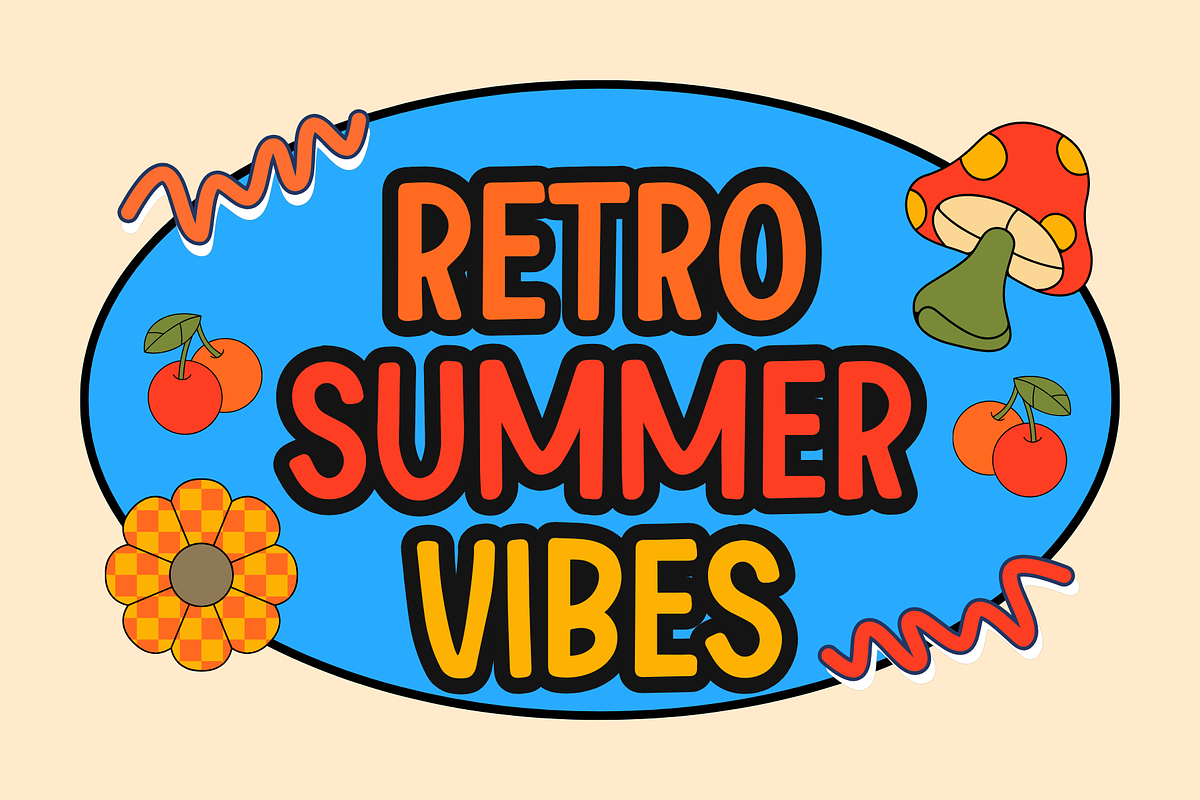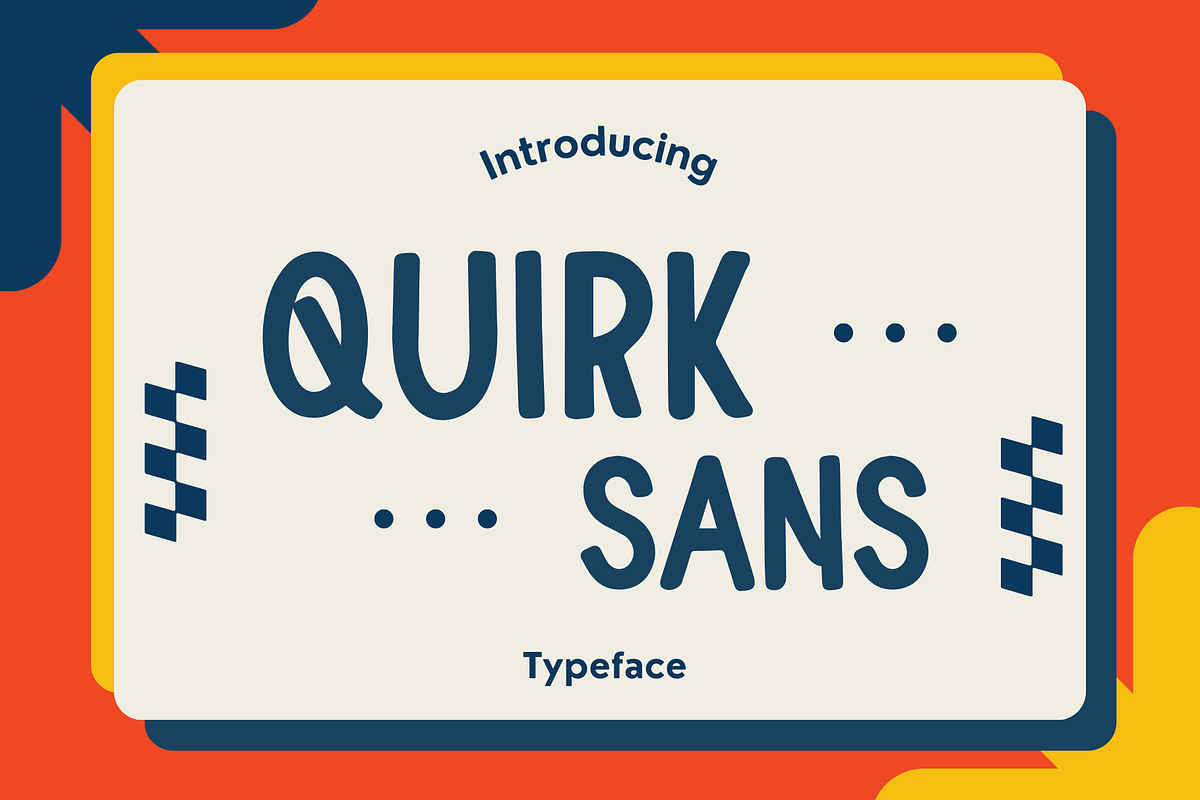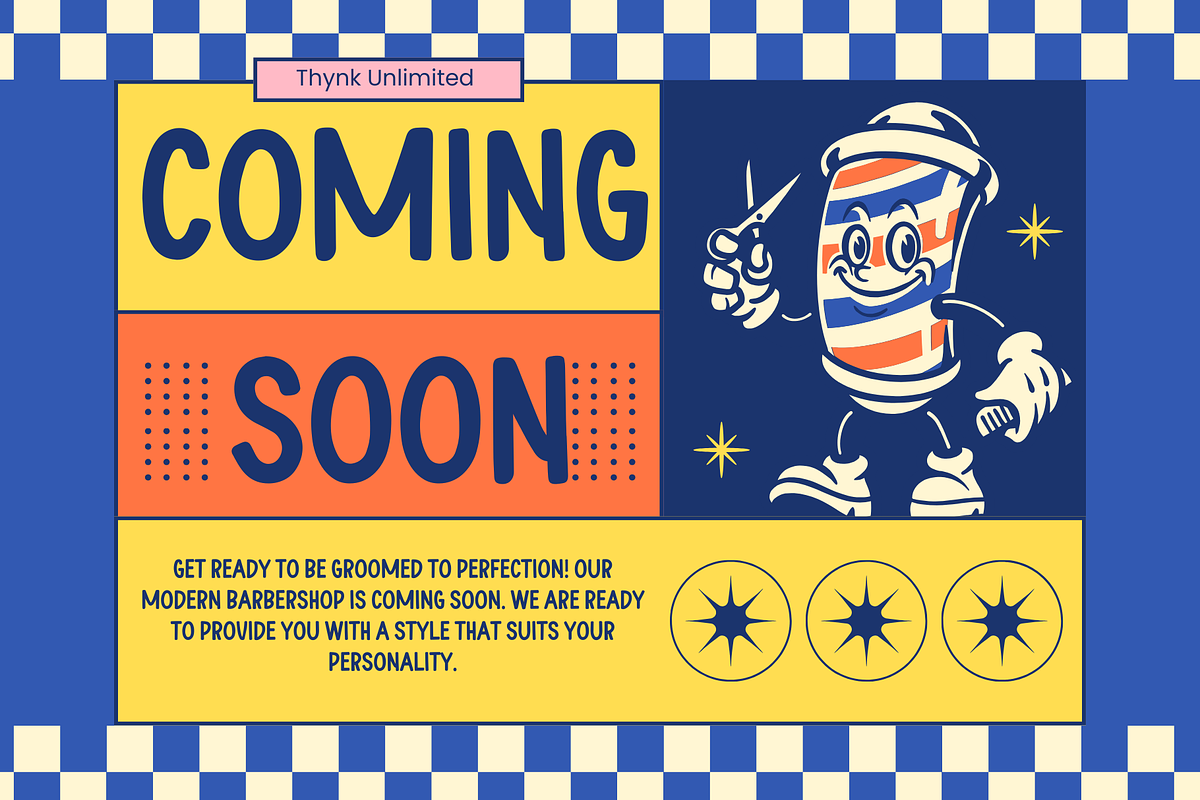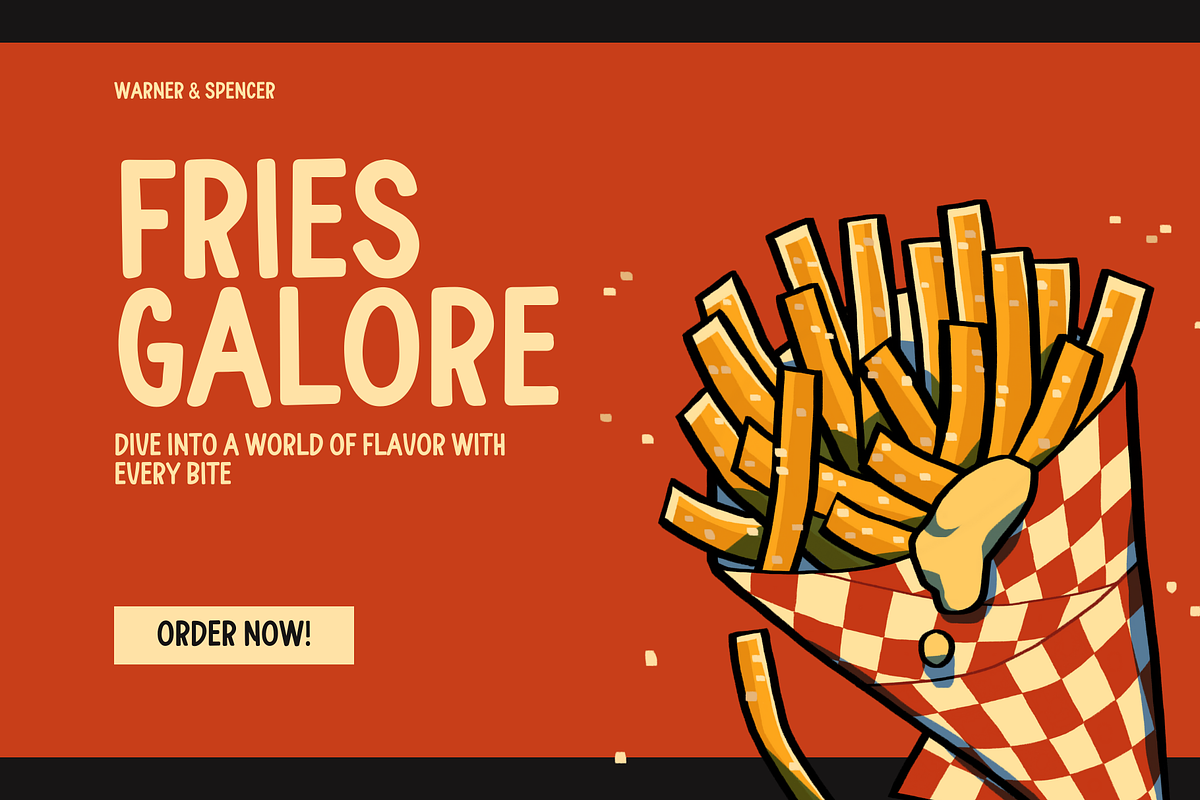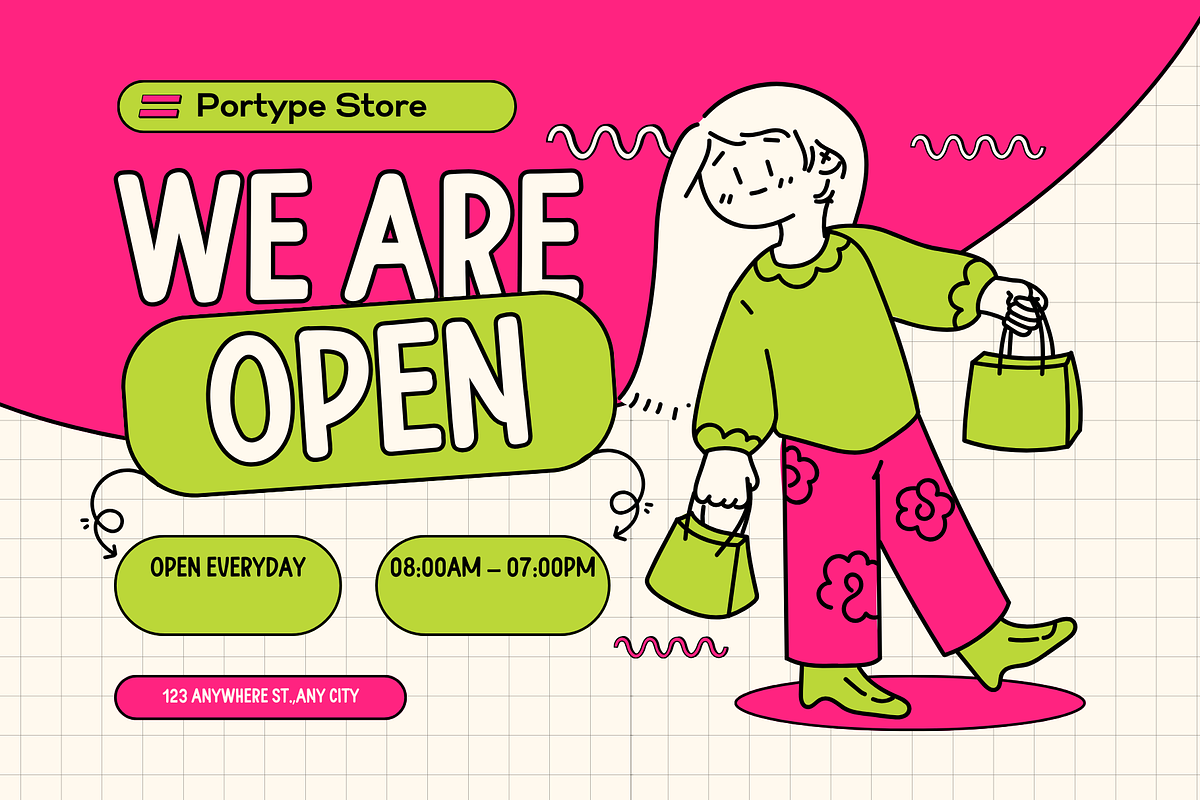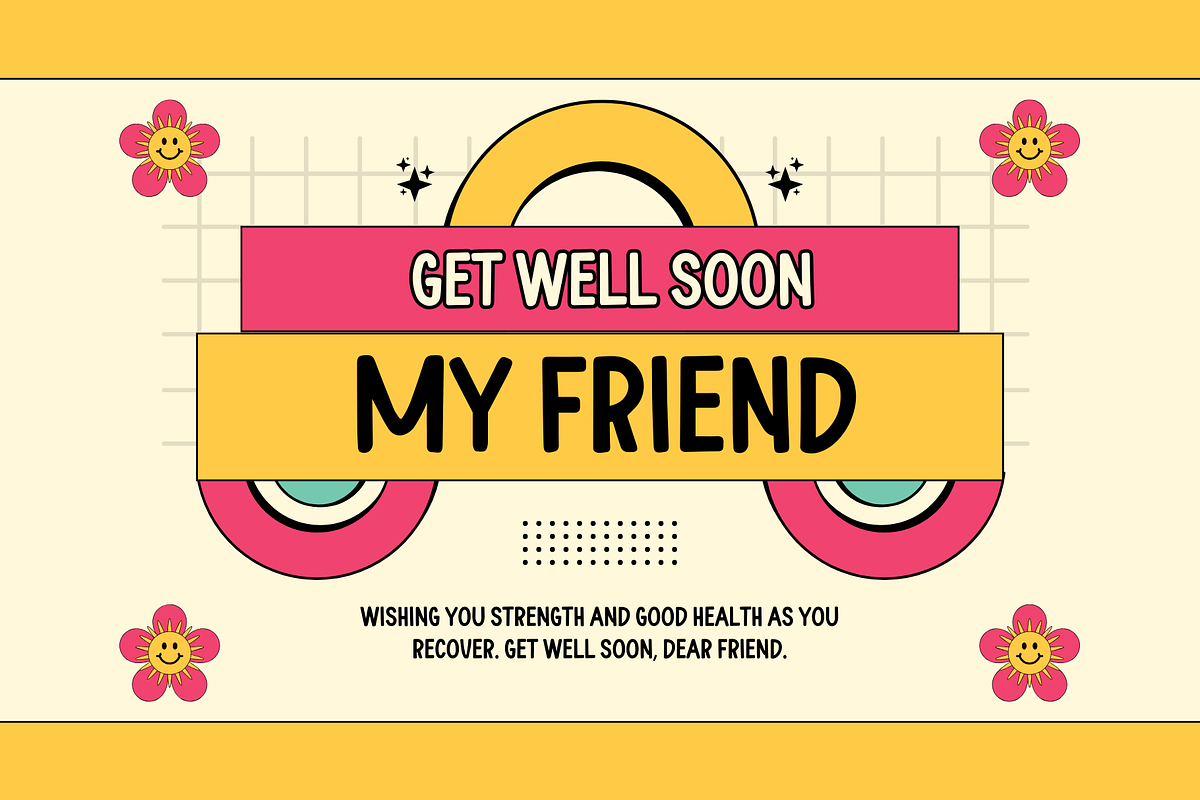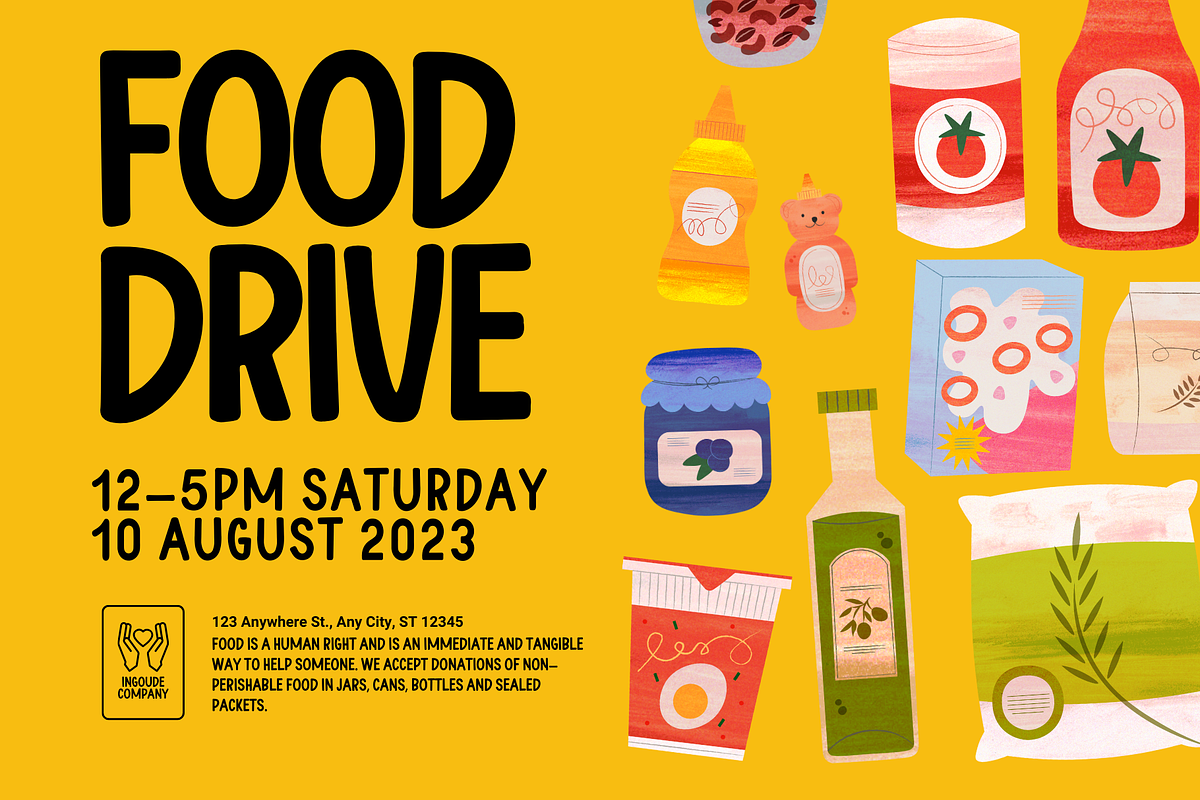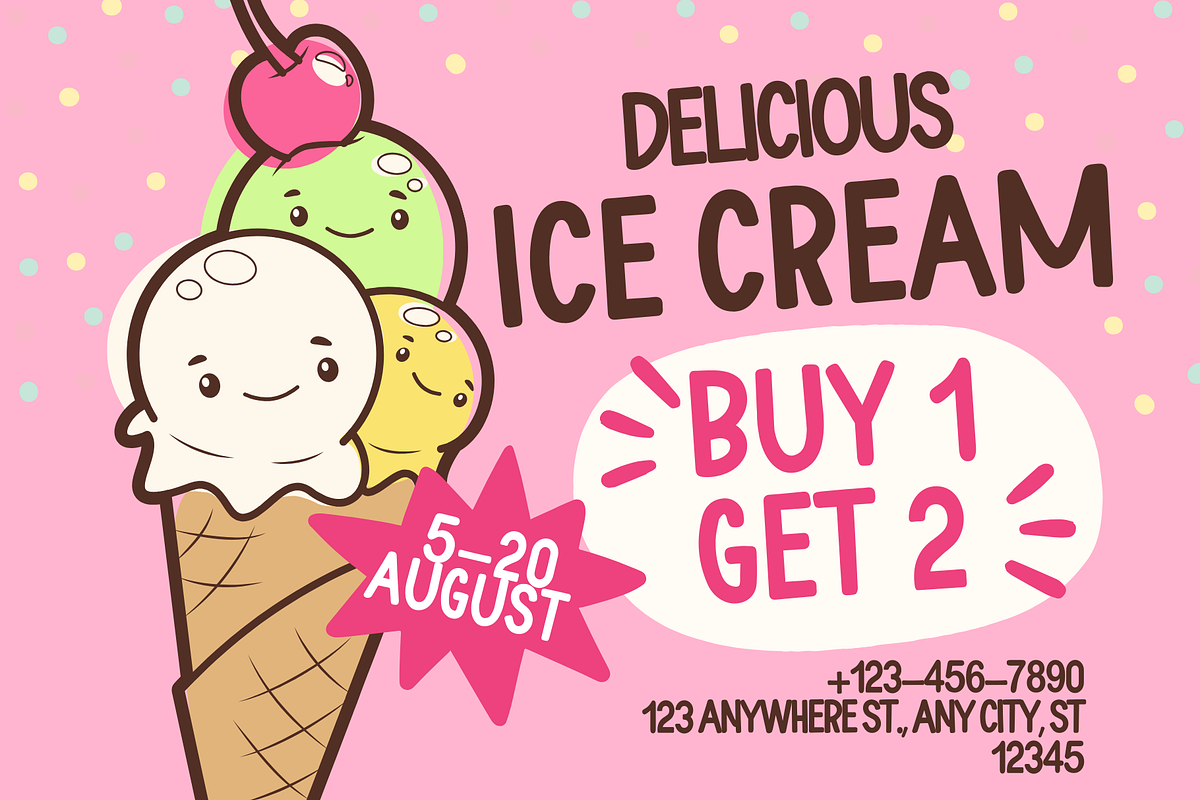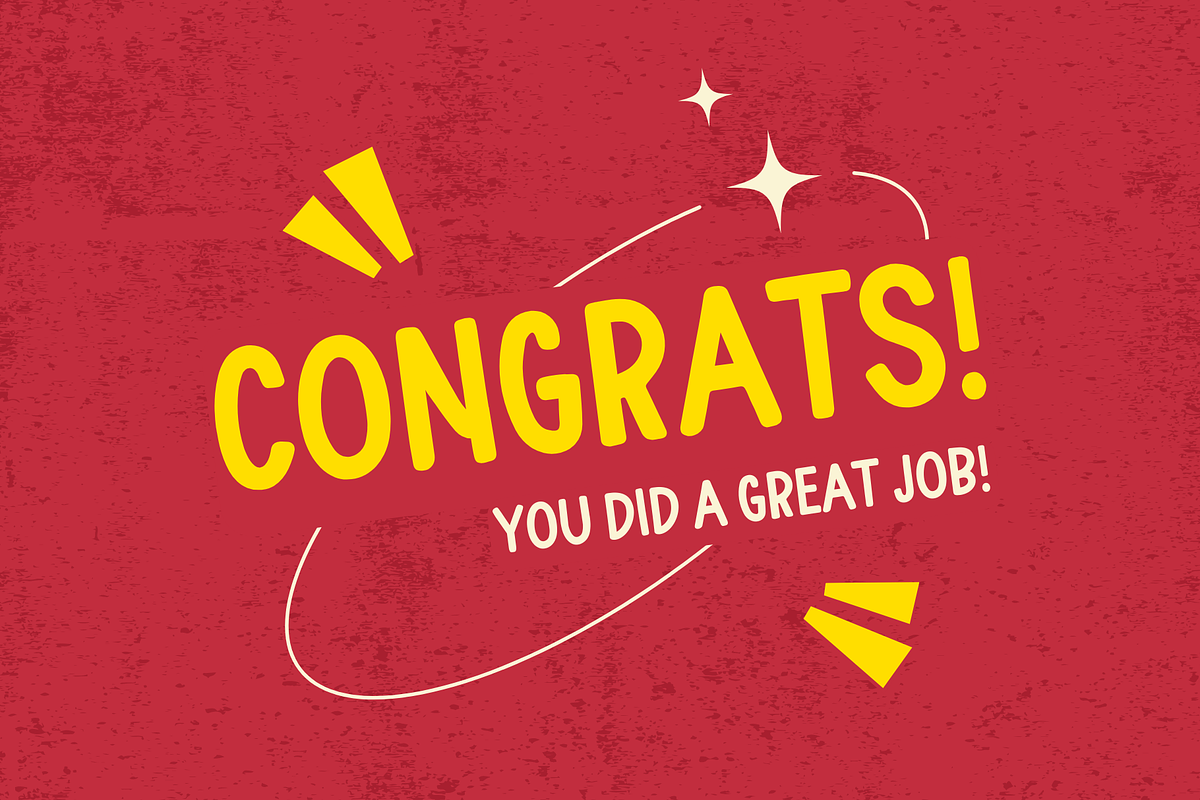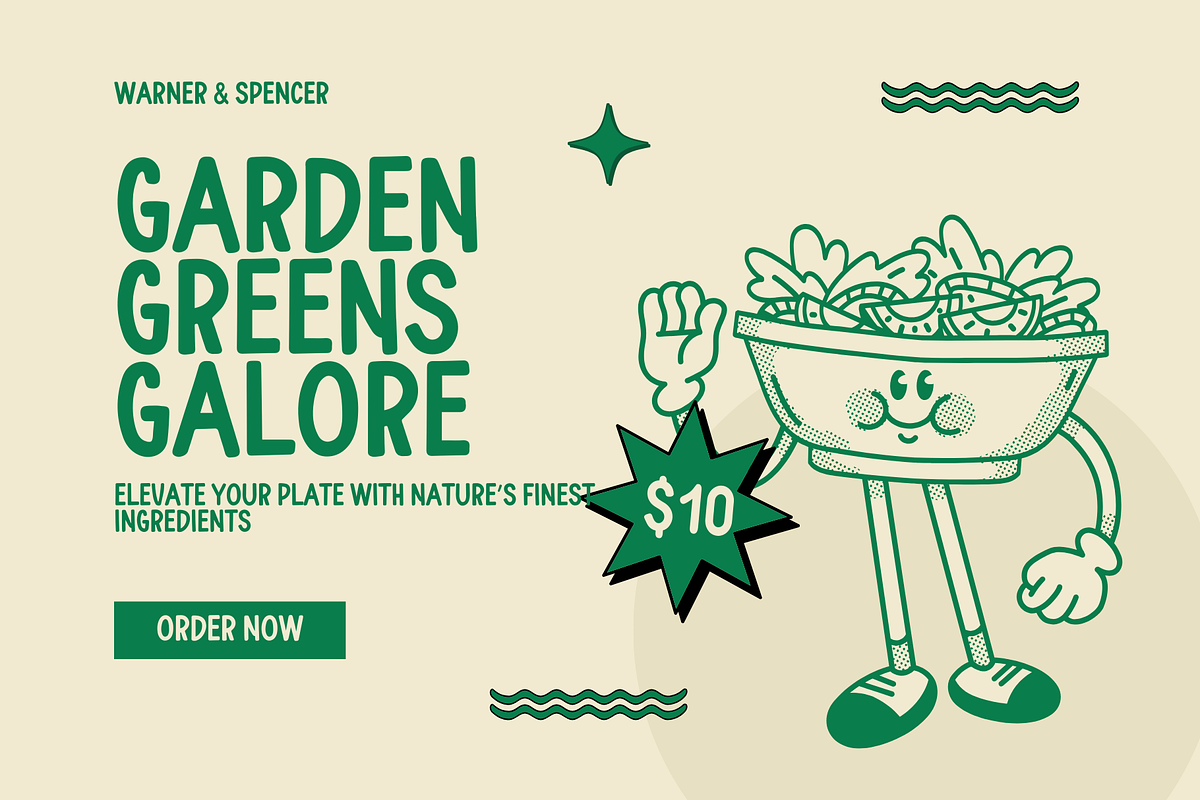
Quirk Sans
Quirk Sans is a typeface inspired by the playful and relaxed style of Comic Sans. It features soft lines and organic curves, giving it a friendly and informal character. Perfect for children's projects, comics, social media, and educational materials, Quirk Sans exudes a cheerful and creative personality. This typeface ensures that every message looks engaging and fun, making it ideal for brands that want to stand out and bring a smile.